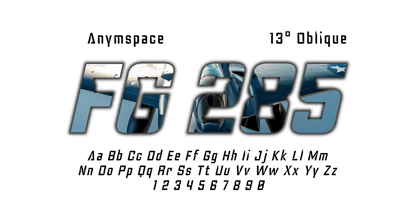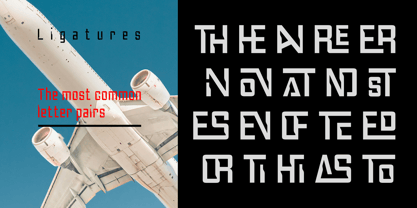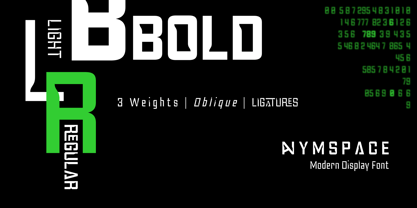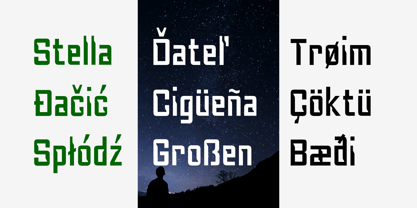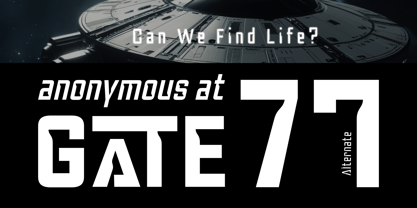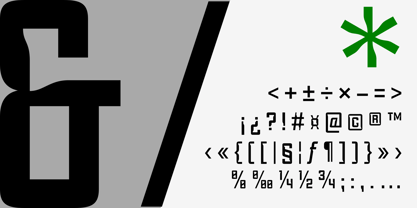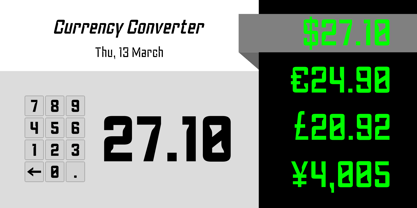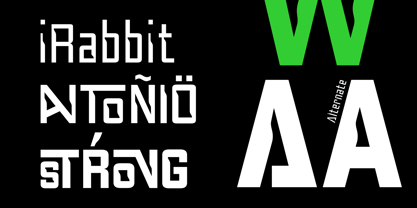
Anymspace
by Attractype
The Anymspace Font Family was designed by Saefulloh and published by Attractype. Anymspace contains 6 styles and family package options. More about this family
Anymspace makes it easy for you to display text on modern, elegant, and futuristic designs. It can be a logo, cover design, magazine, brochure, web design, poster, and others.
This font is equipped with unique ligatures on most common letter pairs. This feature is active by default, but you can disable it if you don't like it. It also has several alternates and multilingual support. All of these features are in 3 weights and oblique style.
Designers: Saefulloh
Foundry: Attractype